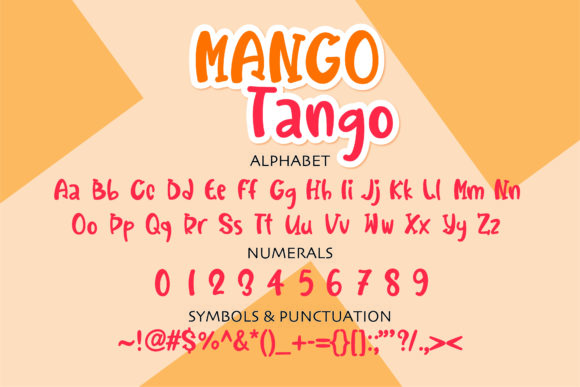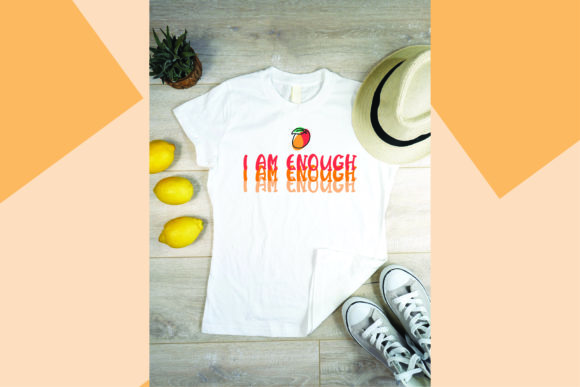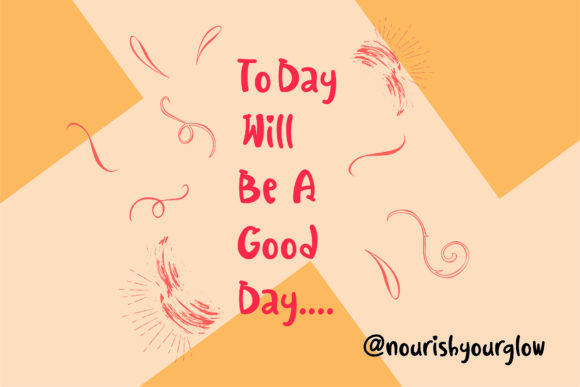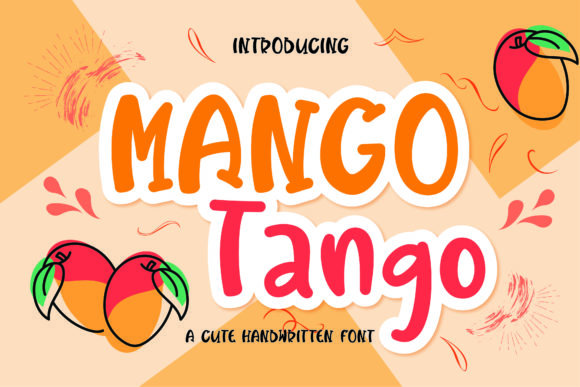
Mango Tango is a simple, natural and adaptable handwritten font.
Its informal style and casual vibe will make this font a go-to choice for each of the creations that require a relaxed touch .
Mango Tango Font offers exceptional quality and versatility, making it a valuable addition to your design toolkit. Whether you’re creating for personal projects or commercial use, Mango Tango Font delivers professional results.